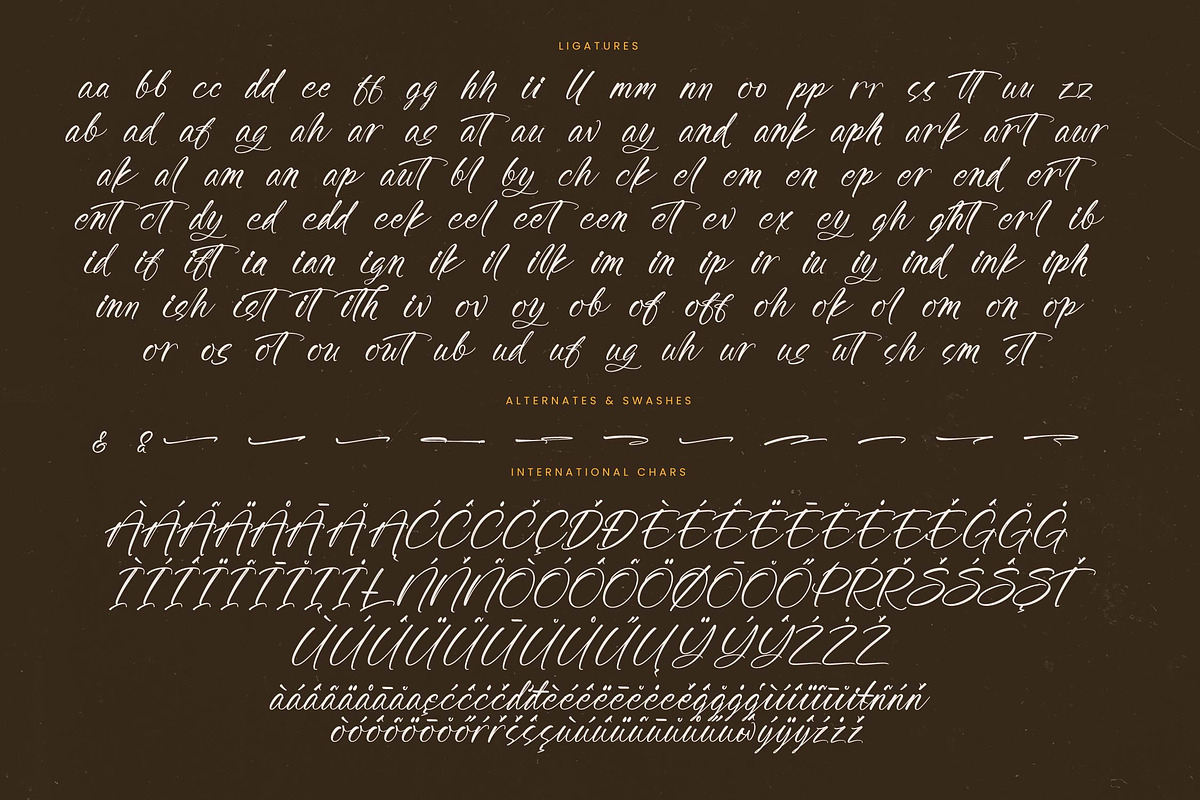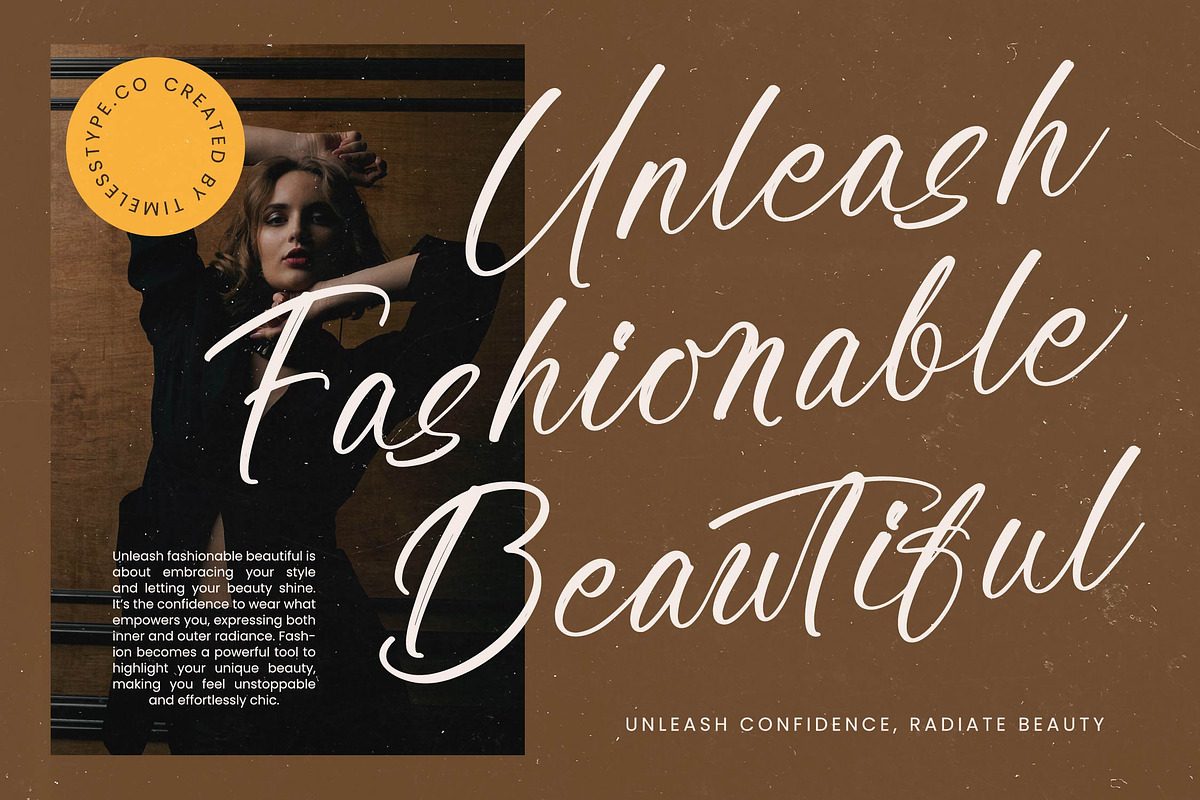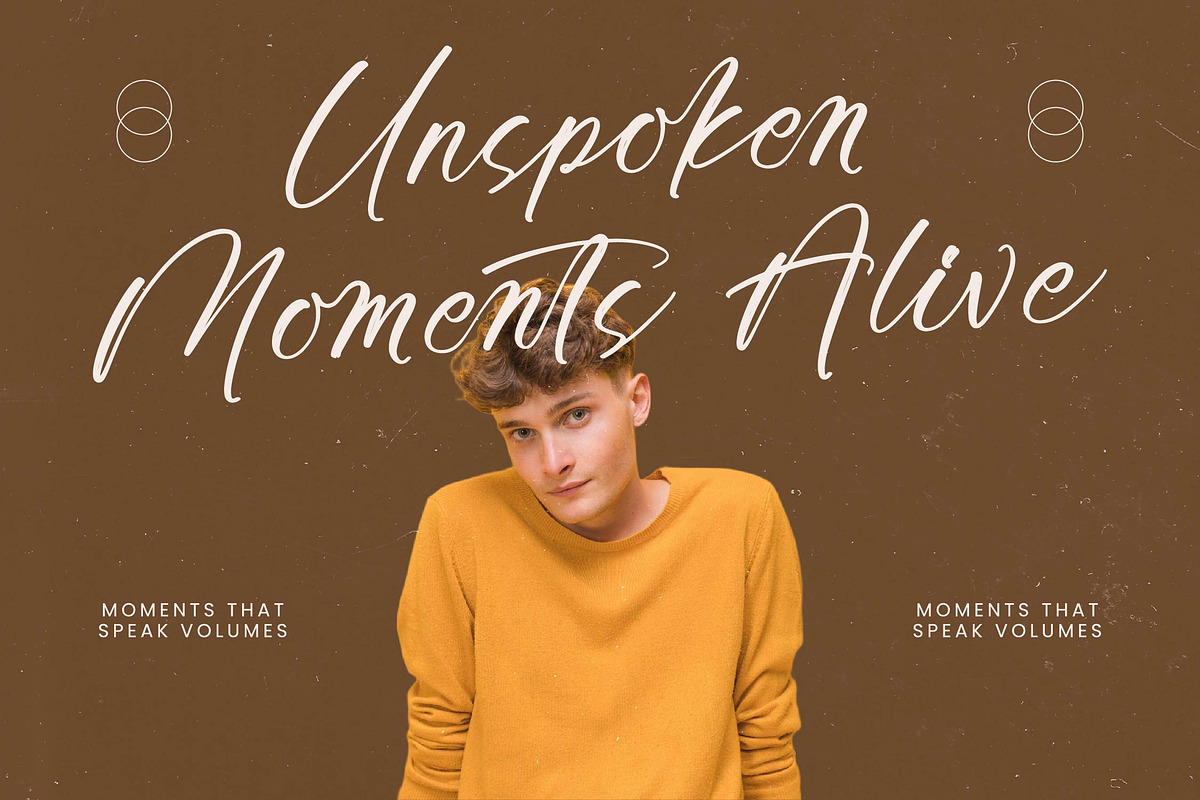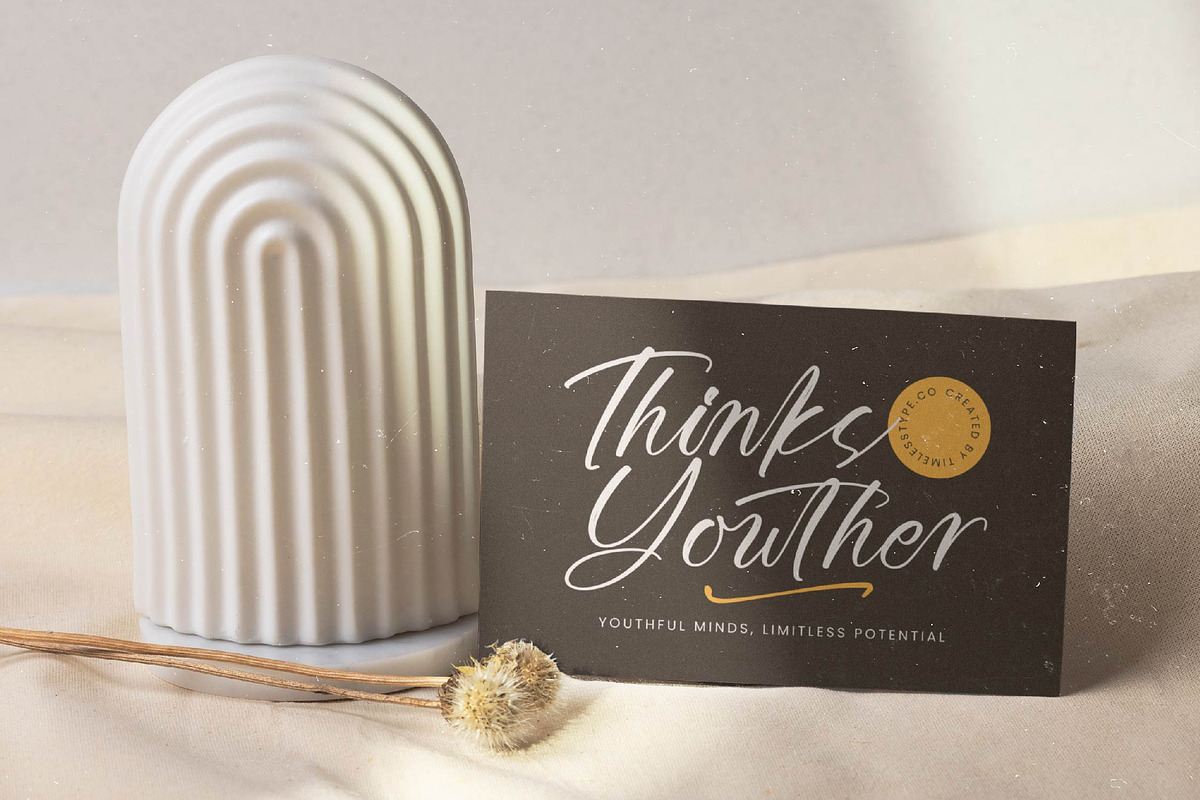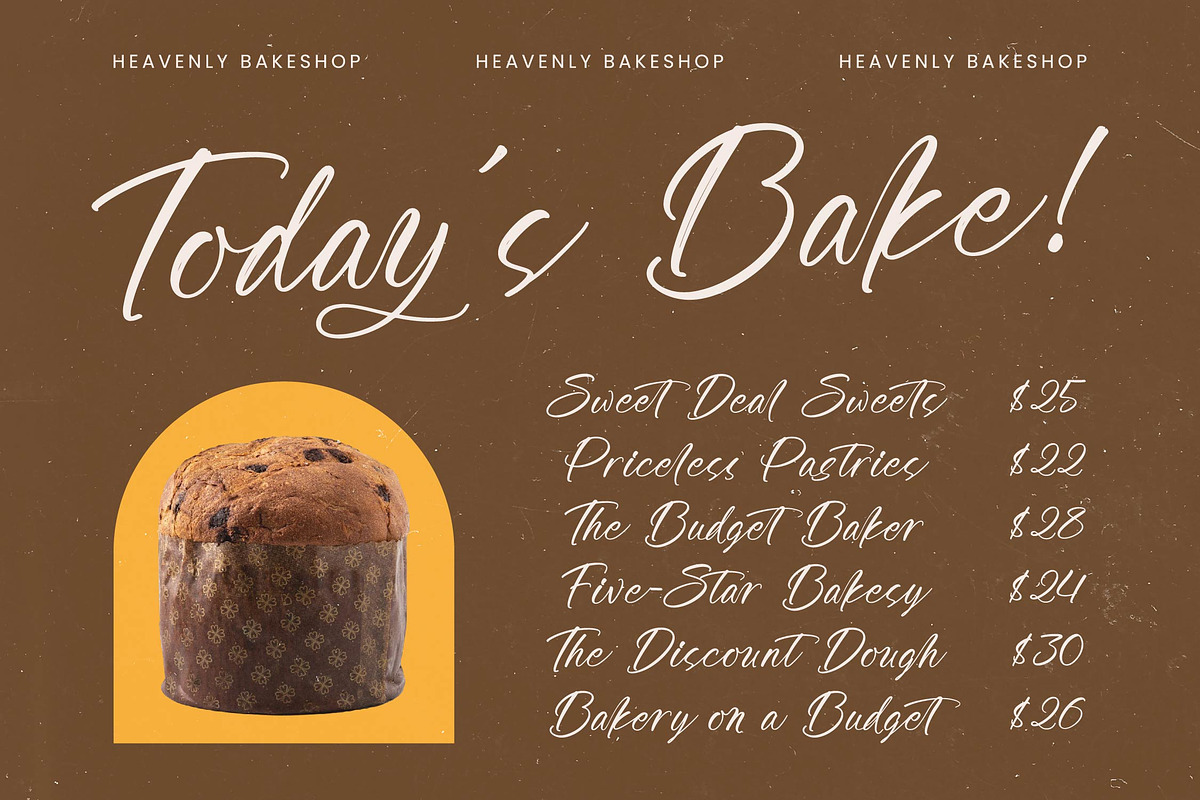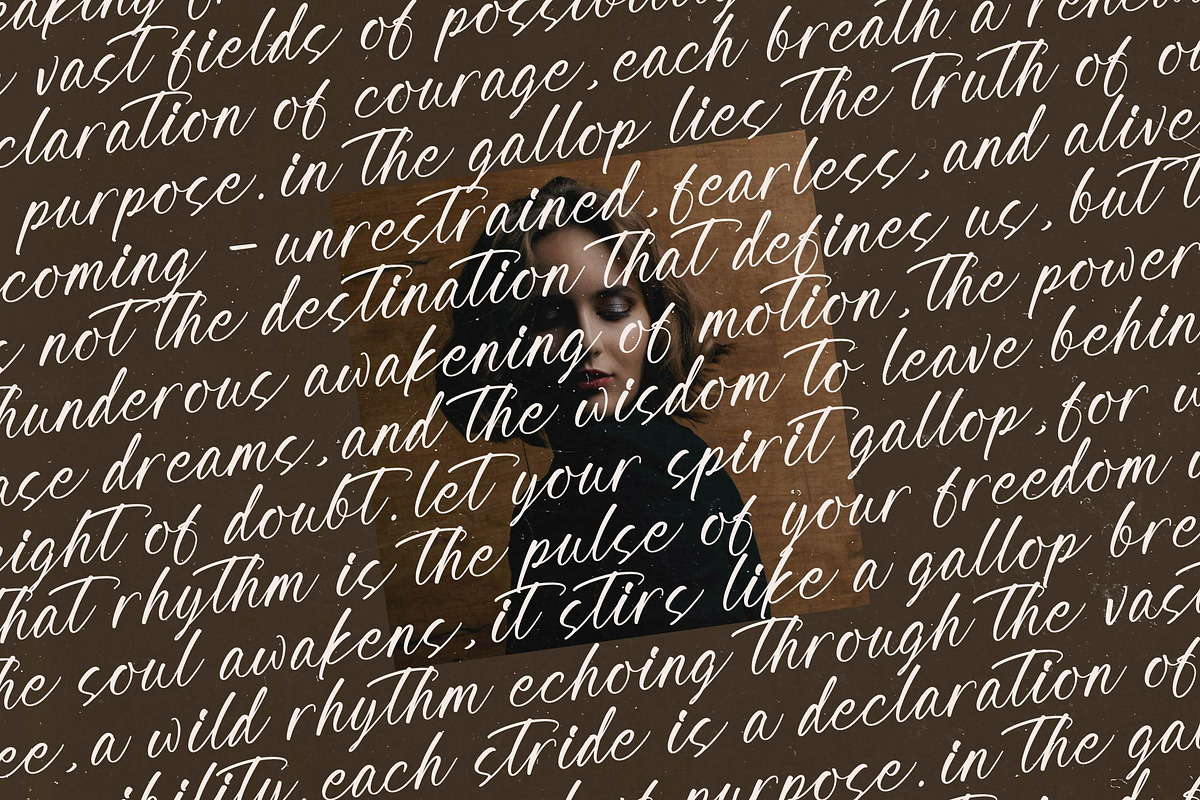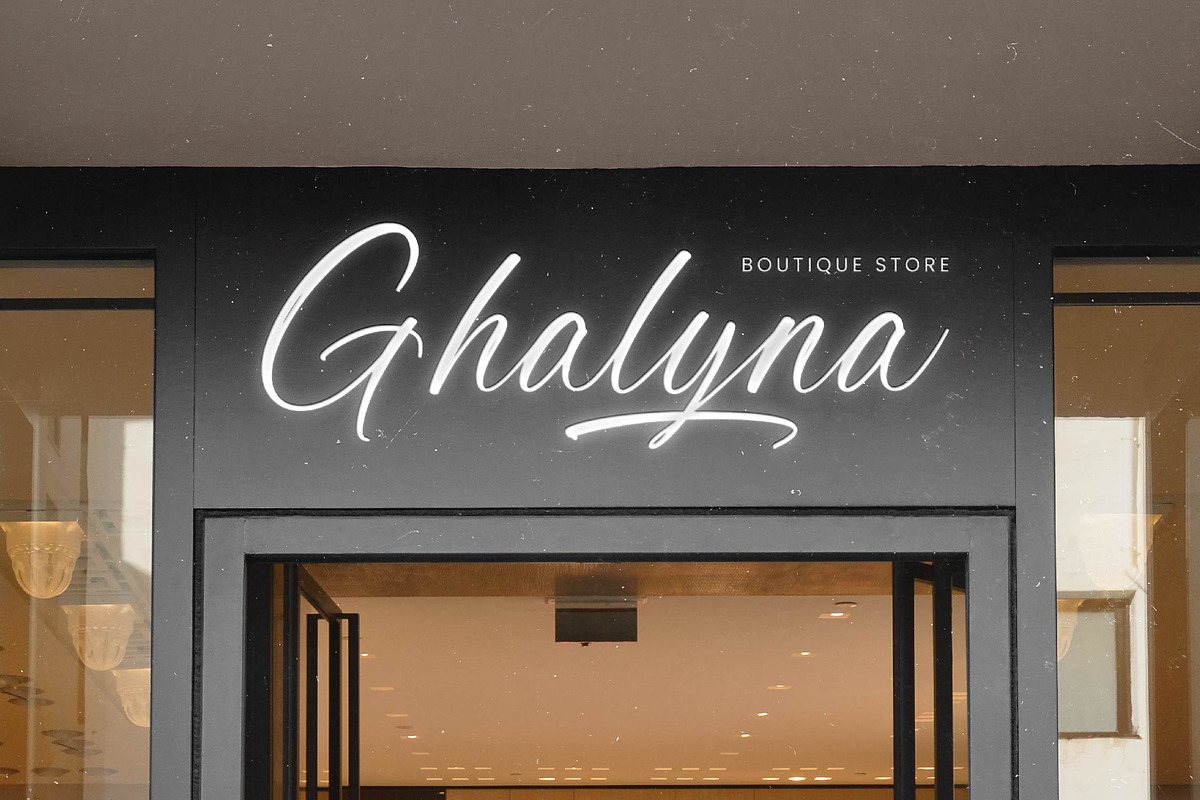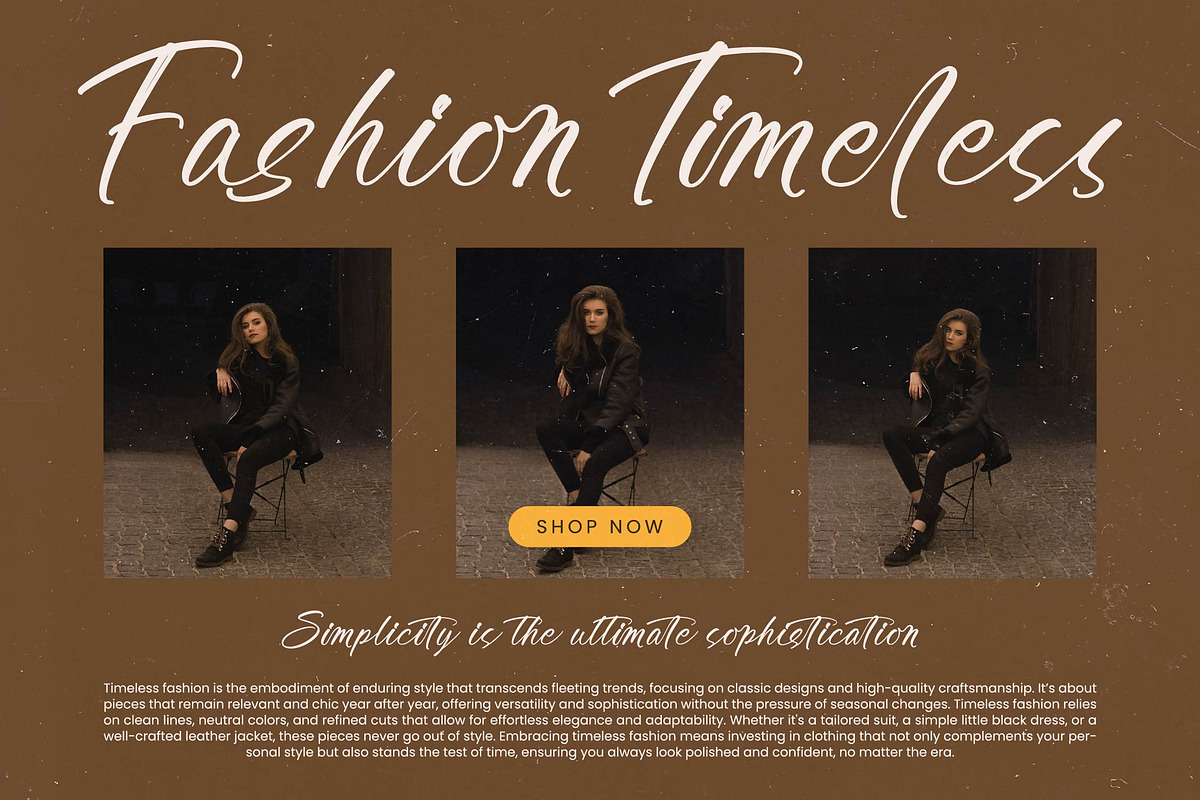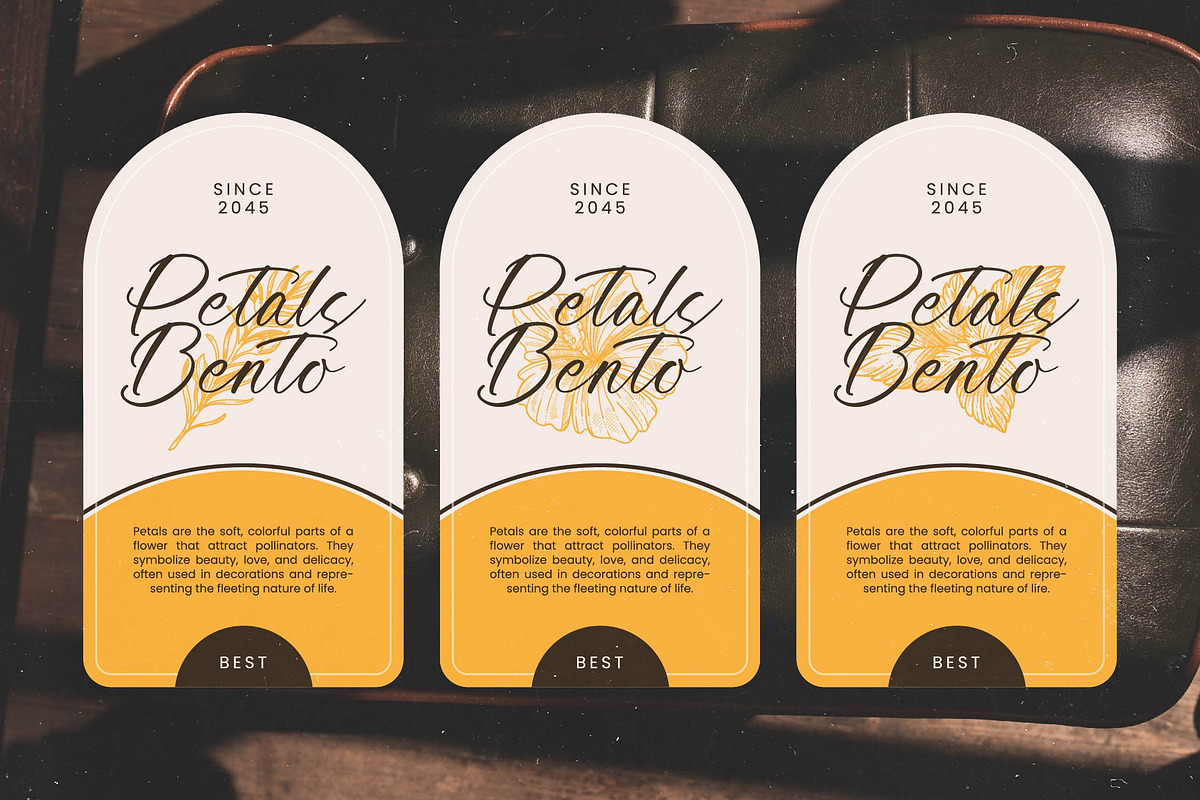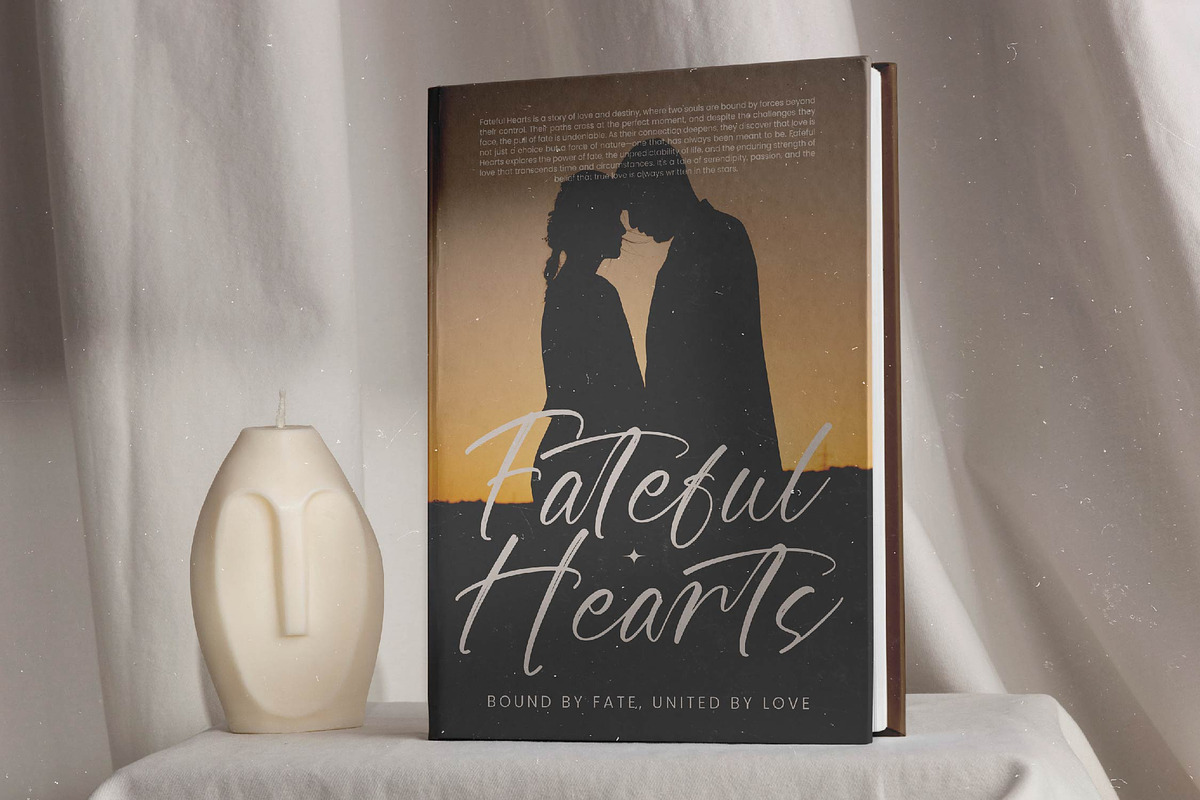
Awakening Gallop Modern Brush Font
Awakening Gallop - Modern Brush Font , from Stylishtype.Co , Suitable for any projects such as: logos, branding projects, homeware designs, product packaging, mugs, quotes, posters, shopping bags, t-shirts, book covers, name card, invitation cards, greeting cards, label, photography, watermark, special events, and all your other luxury and beautiful projects that need a Luxury Script taste.
- 121 Ligature 02 Alternates & 11 Swashes